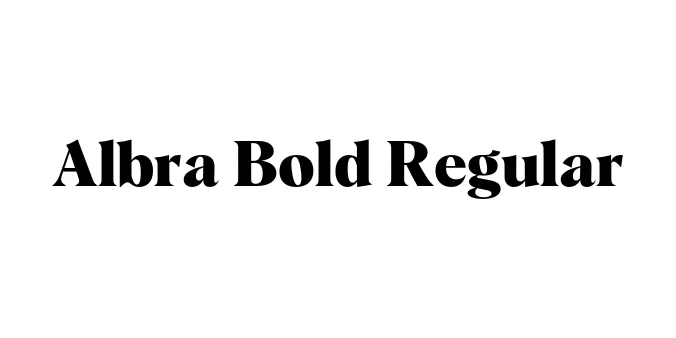
Albra Bold Regular
Designed by BumBumType
Albra Bold Regular is a sophisticated and high-contrast serif typeface that belongs to the wider Albra collection designed by the BumBumType foundry. This font strikes a perfect balance between classical elegance and contemporary functionality. Its bold weight accentuates rich, fluid curves and sharp, precise terminals, making it an exceptional choice for designers seeking to convey a sense of luxury and authority in their visual compositions.
Drawing inspiration from transitional and modern serif styles, Albra Bold offers a timeless aesthetic that is both nostalgic and forward-looking. It is widely recognized for its legibility and distinctive character, often appearing in high-end editorial layouts, fashion branding, and premium packaging design. Whether used in digital interfaces or traditional print, it provides a refined touch that elevates the overall design quality.
Albra Bold Regular Best Uses
Perfect for high-impact headlines and pull quotes in magazines or journals.
Ideal for creating elegant logos and visual identities for premium brands.
Adds a sophisticated and professional touch to landing page hero sections.
Excellent for high-end product labels and luxury box designs.